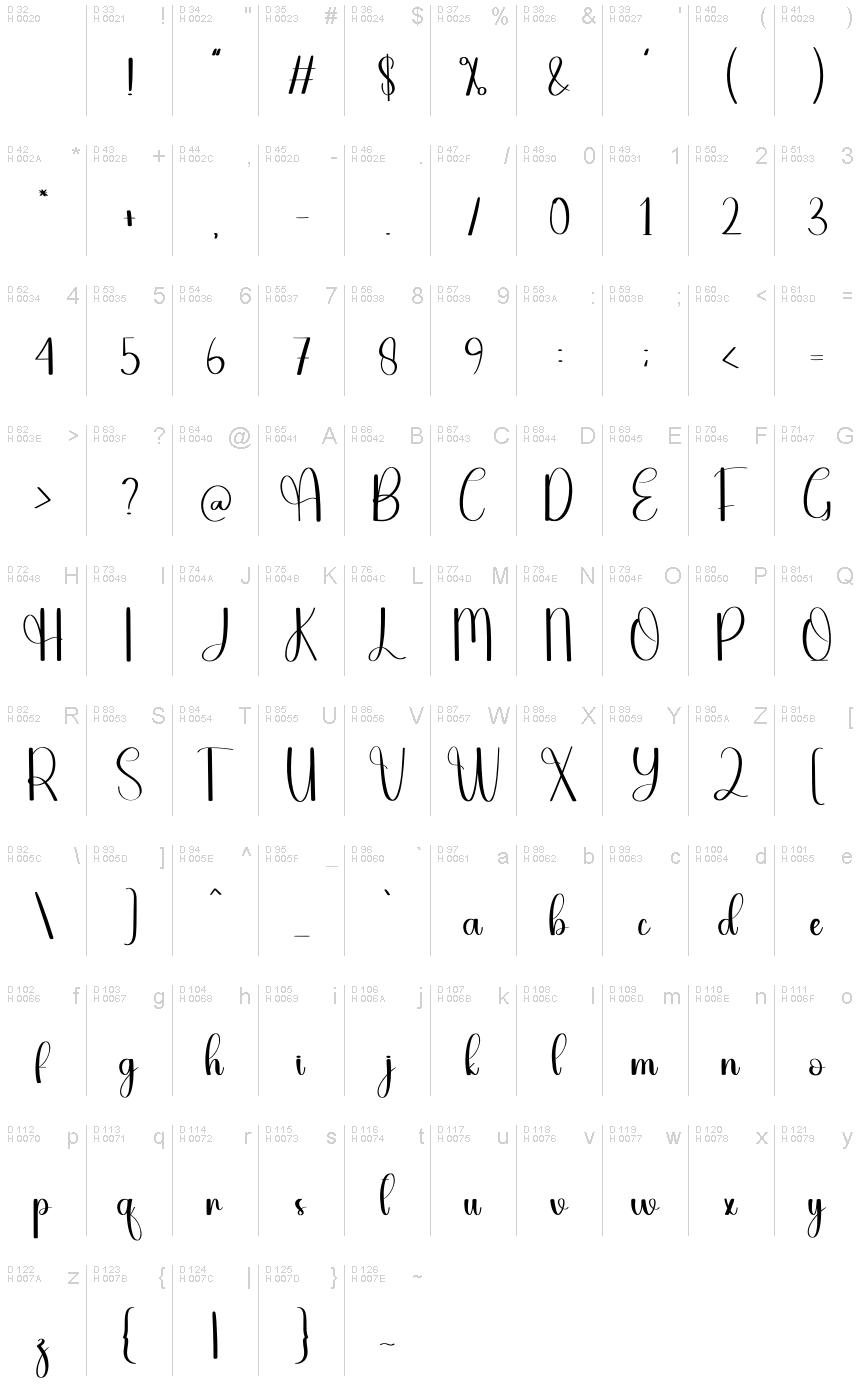
Fried Butter
Fried Butter is a captivating handwritten font crafted by designer Andi Moz. This dynamic typeface exudes a lively, organic charm with its fluid, expressive strokes and playful, slightly irregular forms.
The font's distinctive character lends itself well to a wide range of design applications, from eye-catching logo designs and impactful headlines to whimsical branding and rustic-inspired layouts. Its natural, handcrafted aesthetic effortlessly conveys a sense of authenticity and warmth, making it an ideal choice for projects seeking to evoke a handmade, artisanal feel.
The versatility of Fried Butter allows it to seamlessly transition across diverse design disciplines, from print media to digital interfaces, elevating the visual experience with its unique, personalized flair.